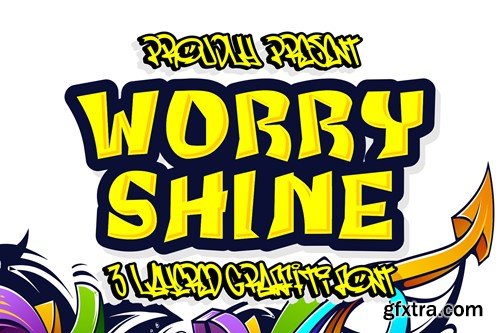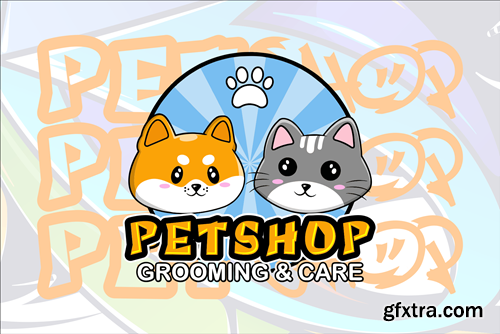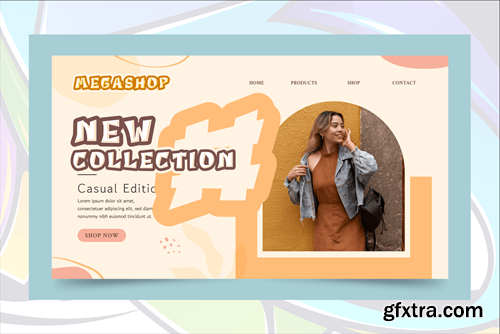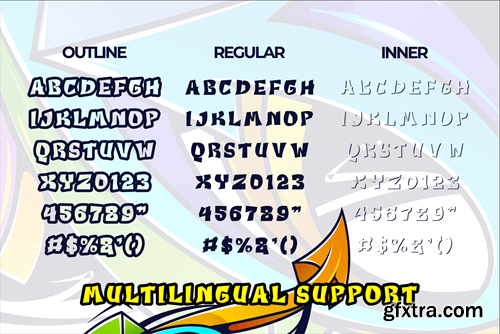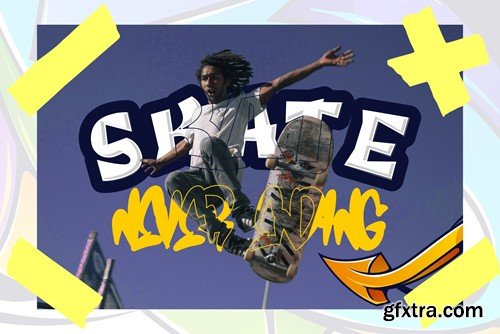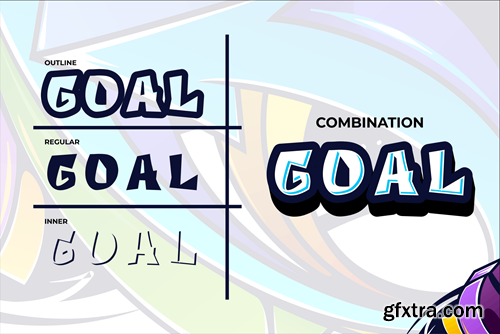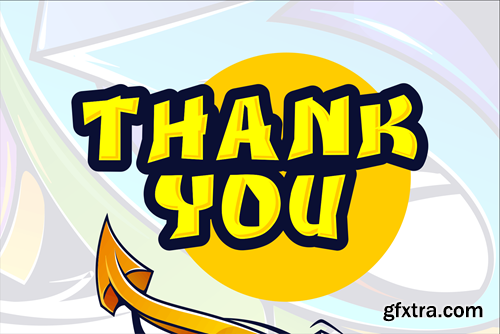
worry shine - 层叠涂鸦字体 j5nzdn7
Unleash the urban masterpiece with Worry Shine, the layered graffiti font that transforms your designs into a street art sensation. More than just a font, Worry Shine is a symphony of layers, each stroke contributing to a dynamic visual narrative that captures the rebellious spirit of graffiti. Crafted with precision and urban flair, this font isn't just a tool; it's an expression of untamed creativity. Worry Shine stands at the forefront of graffiti fonts, a symbol of depth and expression. Every layer, from the bold base to the intricate details on top, tells a story of urban rebellion and innovation. Whether you're designing for posters or any project that demands an edgy aesthetic, Worry Shine ensures your words become a visual anthem, leaving an indelible mark on the canvas of urban typography. Elevate your designs with the raw, layered power of Worry Shine – because the streets never looked this bold and expressive! File Included: Features: That's it! If you have any questions don't hesitate to ask! Stay Classy!